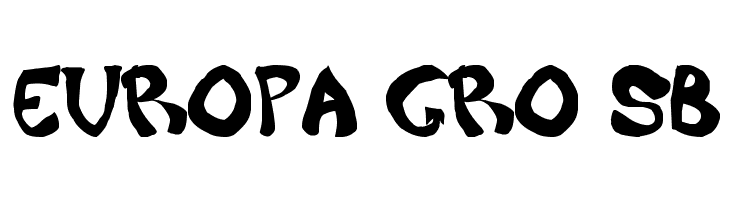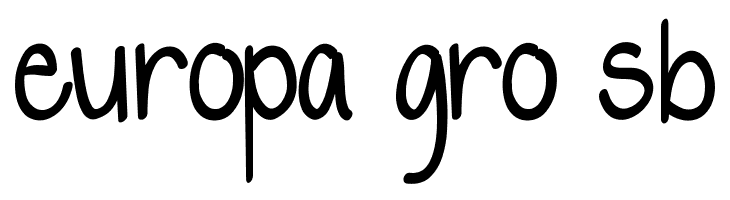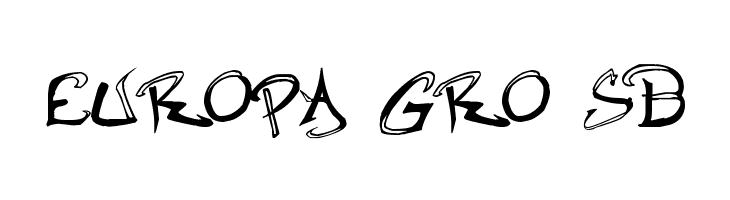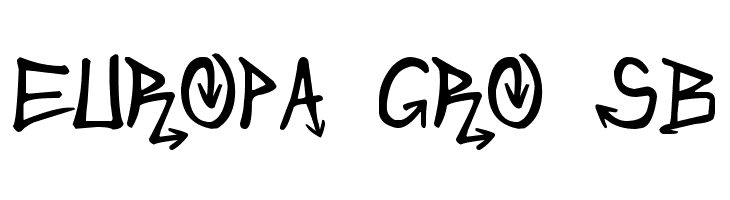
A bold, hand-drawn font with dynamic, irregular strokes for a rebellious look.
A playful, handwritten font with bold, rounded characters and a friendly appearance.
A graffiti-inspired font with bold, dynamic characters and playful arrow elements.
A bold, graffiti-inspired font with an urban, edgy style.
A bold, graffiti-inspired font with a dynamic, hand-drawn style.
A playful, graffiti-inspired font with a hand-drawn, dynamic style.